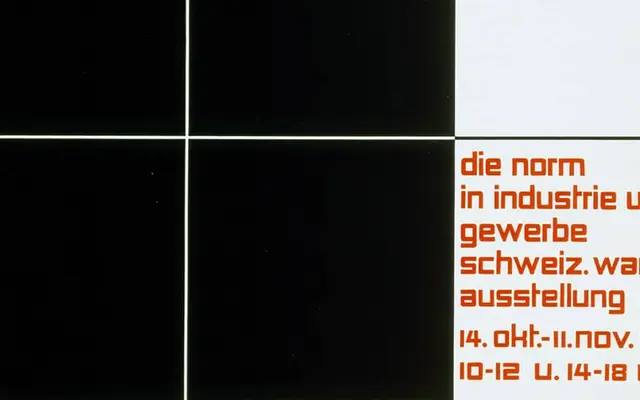
Architype Ballmer
The Foundry Types · Theo Ballmer (source); The Foundry Types (revival)
A digital revival of Theo Ballmer's 1928 grid-based universal letterforms, drawn for his Bauhaus-influenced Swiss exhibition posters.
Part of The Foundry Types' Architype Universal collection, this face reconstructs the strict square, grid-governed letterforms Ballmer devised for a series of 1928 Swiss posters, including his well-known 'Norm' exhibition piece for the Kunstgewerbemuseum in Zürich. The single-alphabet theory of the interwar avant-garde limits the character set, making this a specialist display type rather than a workhorse. Its references to De Stijl geometry and universal alphabet ideals give it a precise historical footing within early European modernism.
A geometric display type derived from Theo Ballmer's Bauhaus-era universal letterforms, built on a strict grid with De Stijl square forms. Its single-alphabet, avant-garde structure places it firmly in early modernist display territory rather than any conventional text category.